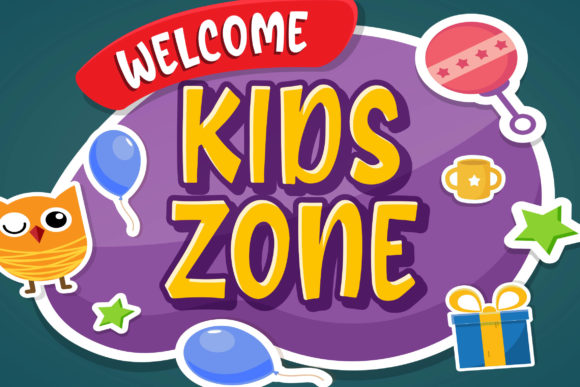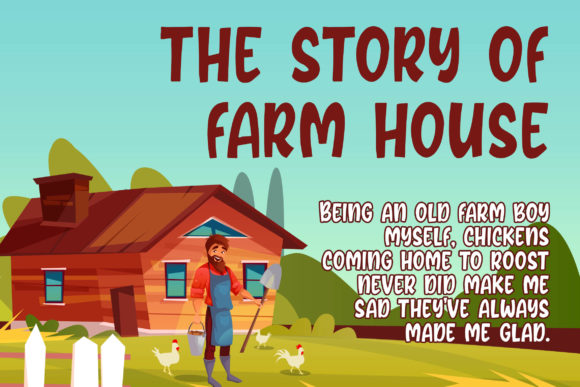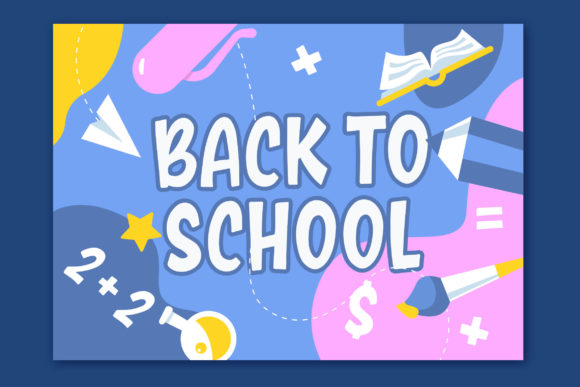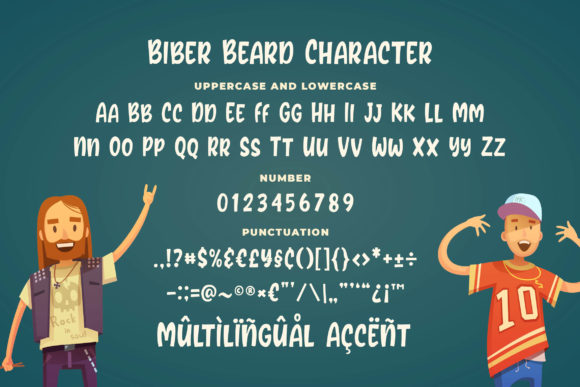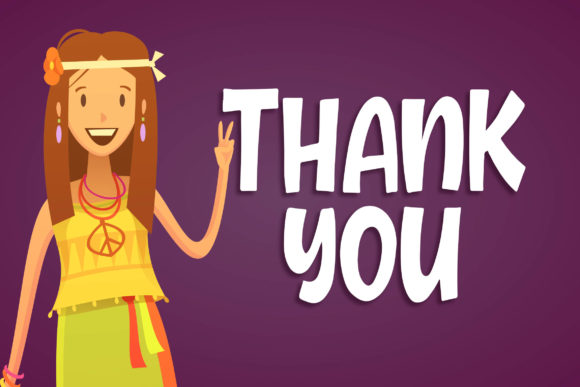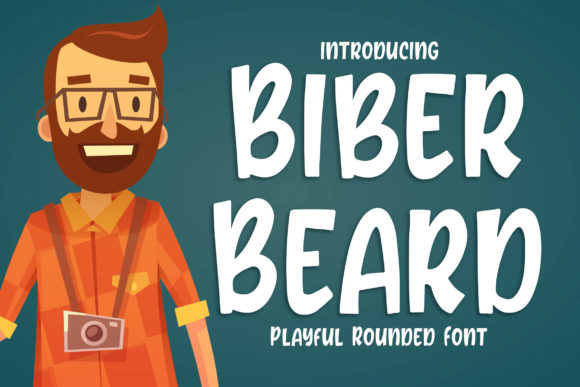
Biber Beard Font: Add a Friendly Touch to Your Designs
Are you looking for a font that can add a playful and friendly vibe to your creative projects? Look no further than Biber Beard Font! This fun and display font is perfect for designers and crafters who want to give their work a down-to-earth feel. In this article, we’ll take a closer look at Biber Beard Font, its features, and how you can use it to elevate your designs.
What is Biber Beard Font?
Biber Beard Font is a display font that features smoothly rounded characters and thick lines. Its unique design makes it perfect for headlines, titles, and other display purposes. The font’s playful and friendly vibe makes it ideal for projects that require a personal touch.
Key Features of Biber Beard Font
- Smoothly Rounded Characters: Biber Beard Font features characters with smooth and rounded edges, giving it a friendly and approachable feel.
- Thick Lines: The font’s thick lines make it perfect for display purposes, ensuring that your text stands out.
- Playful and Fun: Biber Beard Font has a playful and fun vibe, making it perfect for projects that require a personal touch.
- Down-to-Earth Feel: The font’s design gives it a down-to-earth feel, making it perfect for projects that require a friendly and approachable tone.
How to Use Biber Beard Font
Biber Beard Font is perfect for a variety of design projects, including:
- Headlines and Titles: Use Biber Beard Font to create eye-catching headlines and titles that grab attention.
- Signs and Posters: The font’s thick lines and smooth edges make it perfect for signs and posters.
- Branding and Packaging: Add a friendly touch to your brand with Biber Beard Font, perfect for packaging and branding projects.
- Invitations and Cards: Use Biber Beard Font to create playful and fun invitations and cards.
Benefits of Using Biber Beard Font
- Unique Design: Biber Beard Font has a unique design that sets it apart from other fonts.
- Easy to Read: The font’s thick lines and smooth edges make it easy to read, even at large sizes.
- Versatile: Biber Beard Font is perfect for a variety of design projects, from headlines to signs and posters.
- Time-Saving: With Biber Beard Font, you can create professional-looking designs in no time.
Tips for Using Biber Beard Font
- Use it for Display Purposes: Biber Beard Font is perfect for display purposes, such as headlines and titles.
- Experiment with Colors: Try out different colors to find the perfect combination that matches your brand or project’s tone.
- Pair it with Other Fonts: Experiment with pairing Biber Beard Font with other fonts to create a unique look.
- Use it for Kids’ Projects: Biber Beard Font is perfect for kids’ projects, such as children’s books, posters, and invitations.
Biber Beard Font is a fun and playful display font that can add a friendly and down-to-earth feel to your designs. With its smoothly rounded characters and thick lines, it’s perfect for a variety of design projects, from headlines to signs and posters. Whether you’re a designer or crafter, Biber Beard Font is a great addition to your font collection.